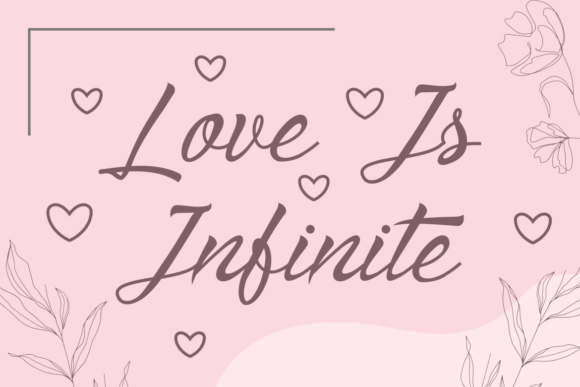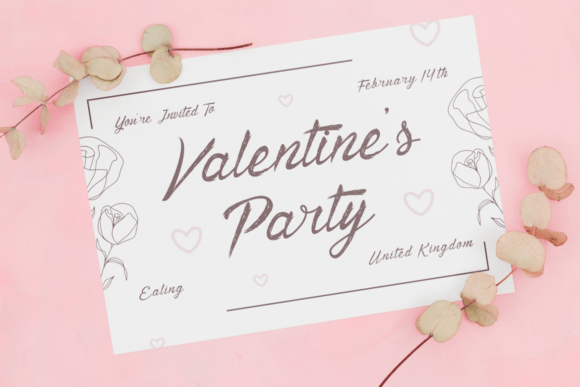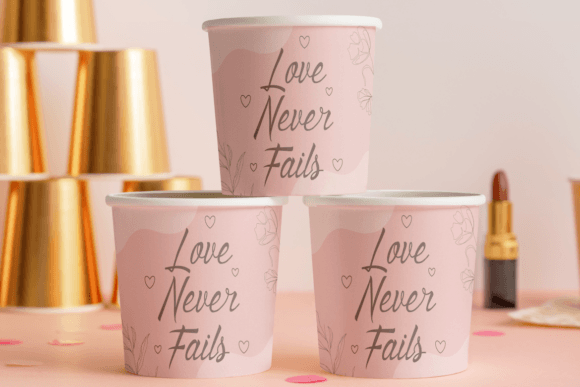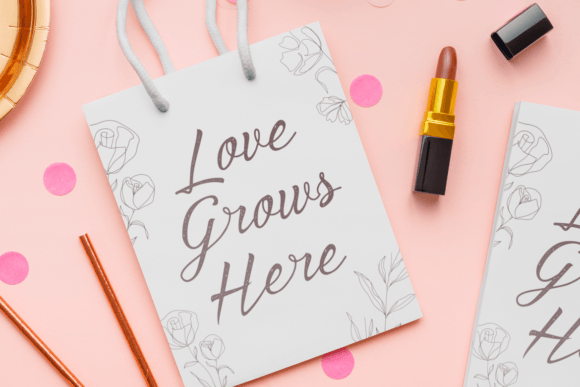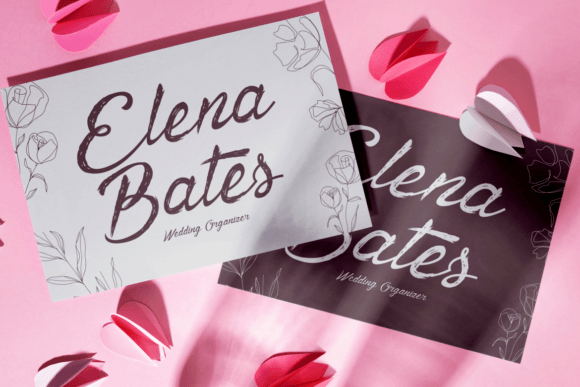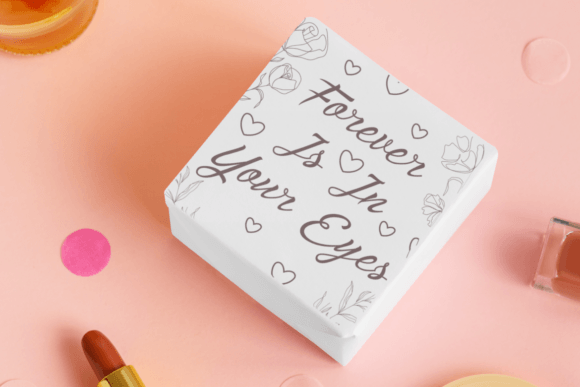
Introducing Beloved Grace – Romantic Script Font
Are you searching for a font that embodies romance and elegance? Look no further than Beloved Grace, a beautifully crafted script font that is perfect for adding a heartfelt touch to any design. With its natural handwritten style, smooth curves, and subtle texture details, this font is sure to capture the essence of love and charm.
A Font that Exudes Romance and Elegance
Beloved Grace features soft, flowing lines that exude charm and sophistication. The slightly distressed texture gives the font a unique and personal feel, making it perfect for projects that require a romantic or delicate aesthetic. Whether you’re creating wedding invitations, love letters, branding designs, or Valentine’s Day-themed creations, Beloved Grace is the ideal choice.
This versatile font is suitable for a wide range of design projects, including:
- Love letters and romantic correspondence
- Branding designs and logos
- Valentine’s Day-themed creations
- Greeting cards and posters
A Beautifully Crafted Design
The Beloved Grace font is complemented by a gentle pink background, symbolizing romance and warmth. Delicate floral illustrations add a feminine and elegant touch, creating a harmonious combination that enhances the font’s versatility. This beautiful design makes it perfect for designers and crafters who want to create dreamy and romantic designs.
Key Features of Beloved Grace
- Natural handwritten style
- Smooth curves and subtle texture details
- Slightly distressed texture for a unique and personal feel
- Soft, flowing lines that exude charm and sophistication
- Gentle pink background symbolizing romance and warmth
- Delicate floral illustrations adding a feminine and elegant touch
Why Choose Beloved Grace?
Beloved Grace is the perfect choice for designers and crafters who want to add a touch of romance and elegance to their designs. With its beautiful and unique design, this font is sure to:
- Elevate your designs and make them stand out
- Add a heartfelt touch to any project
- Convey love, charm, and sophistication
- Make your designs perfect for romantic occasions and celebrations
Tips for Using Beloved Grace
Here are some tips for getting the most out of Beloved Grace:
- Use it for romantic occasions and celebrations, such as weddings and Valentine’s Day
- Pair it with delicate floral illustrations and gentle colors for a beautiful design
- Experiment with different textures and backgrounds to add depth and interest
- Use it for branding designs and logos to add a touch of elegance and sophistication
Beloved Grace is a beautifully crafted script font that embodies romance and elegance. With its natural handwritten style, smooth curves, and subtle texture details, this font is perfect for adding a heartfelt touch to any design. Whether you’re a designer or crafter, Beloved Grace is the ideal choice for projects that require a romantic or delicate aesthetic. So why wait? Download Beloved Grace today and start creating beautiful, dreamy designs that capture the essence of love and charm.